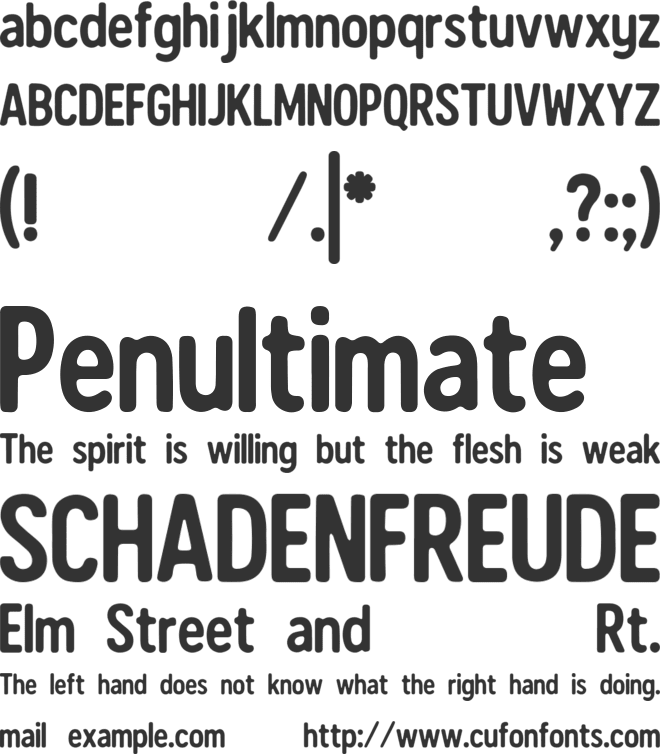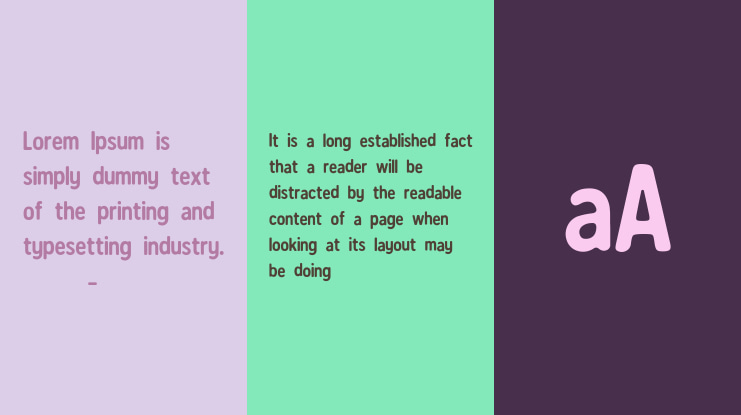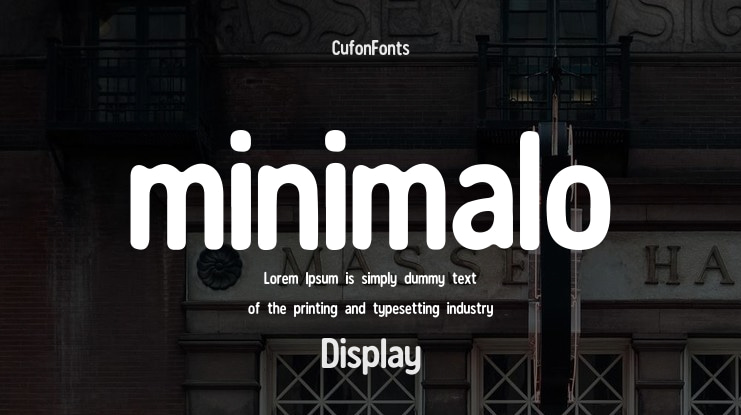
minimalo Font Family
Minimalo is a minimalist sans serif with multilingual support—ideal for clean branding, editorial layouts, and modern packaging.